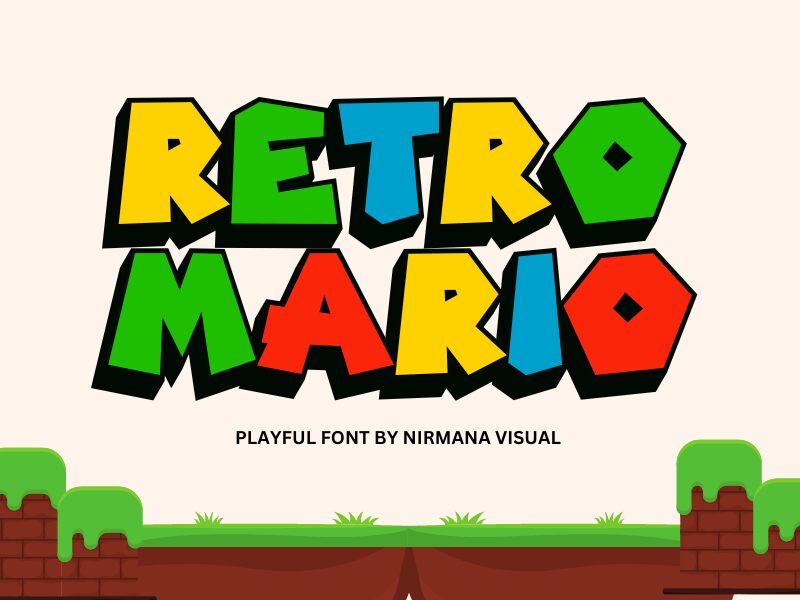
Retro Mario by Nirmana Visual is a playful display font that adds a touch of whimsy to any project. Its extra-bold weight and cartoon style make it perfect for designs that require a fun, retro vibe. This font is suitable for various projects such as kid's books, video game designs, posters, and branding materials. The unique blend of vintage and modern styles in Retro Mario makes it an excellent choice for projects seeking to evoke nostalgia while still feeling fresh and contemporary. Bring your designs to life with Retro Mario!
Retro Mario by Nirmana Visual,
Retro Mario